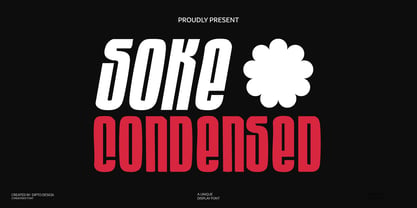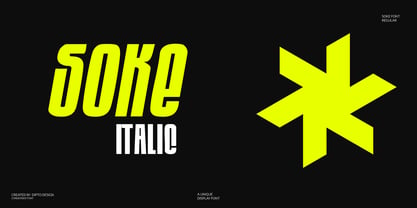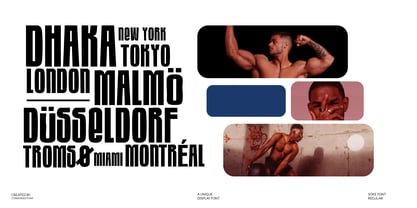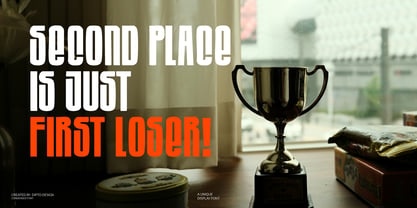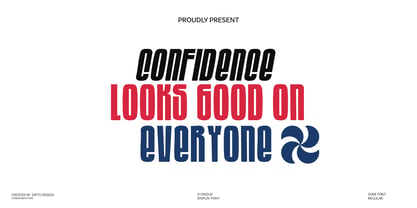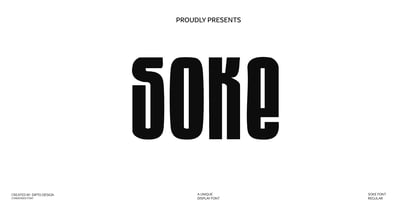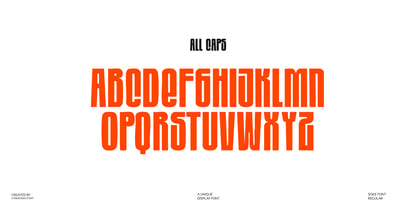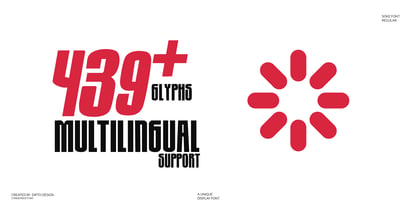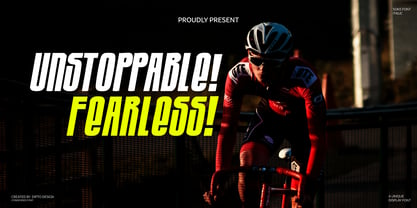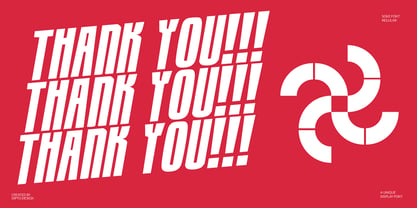
Soke
by Creative9
Soke is a bold, ultra-condensed display typeface distinguished by its tall proportions, blocky slab terminals, and a near-unicase structure, where the lowercase letters sit close to cap-height for optimal consistency in headlines and logotypes. This typeface is specifically designed for high-impact applications rather than body text, making it ideal for display sizes such as headlines, logotypes, packaging, posters, and branding systems that require a typeface with immediate visual weight. The Soke family features a comprehensive Latin character set with extended support for European languages, standard ligatures (fi, fl, ff, ffi, ffl), stylistic alternates, currency symbols, and a complete set of punctuation and symbols, ensuring it is production-ready for both print and digital applications.
Designers: Dipto Das
Foundry: Creative9